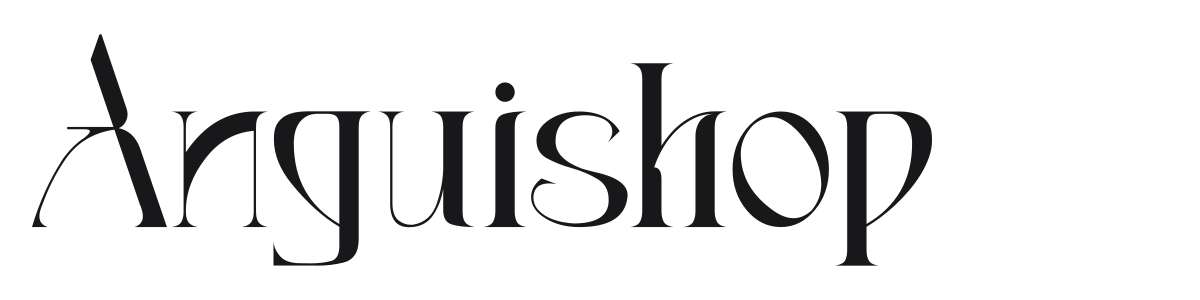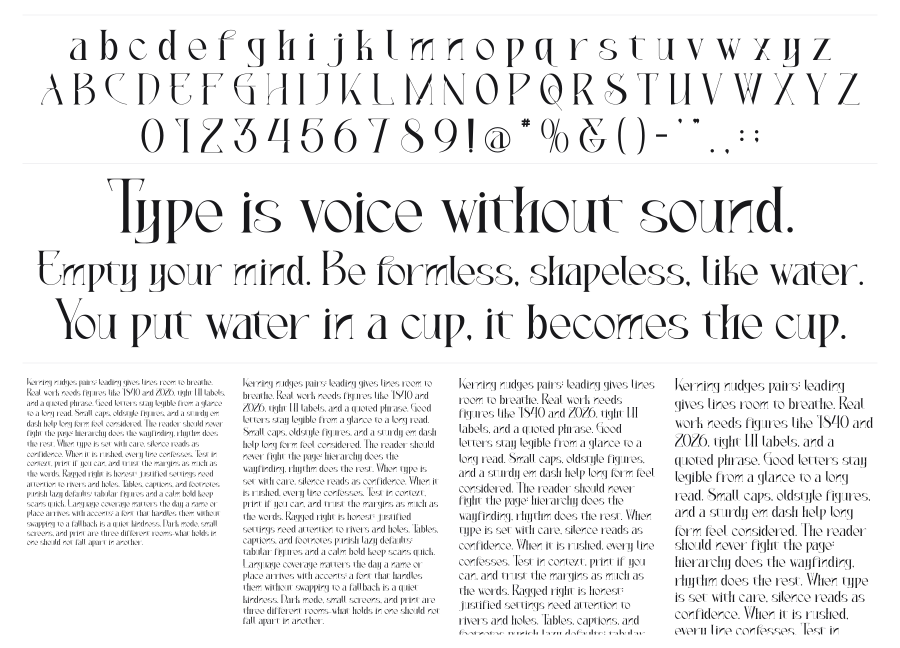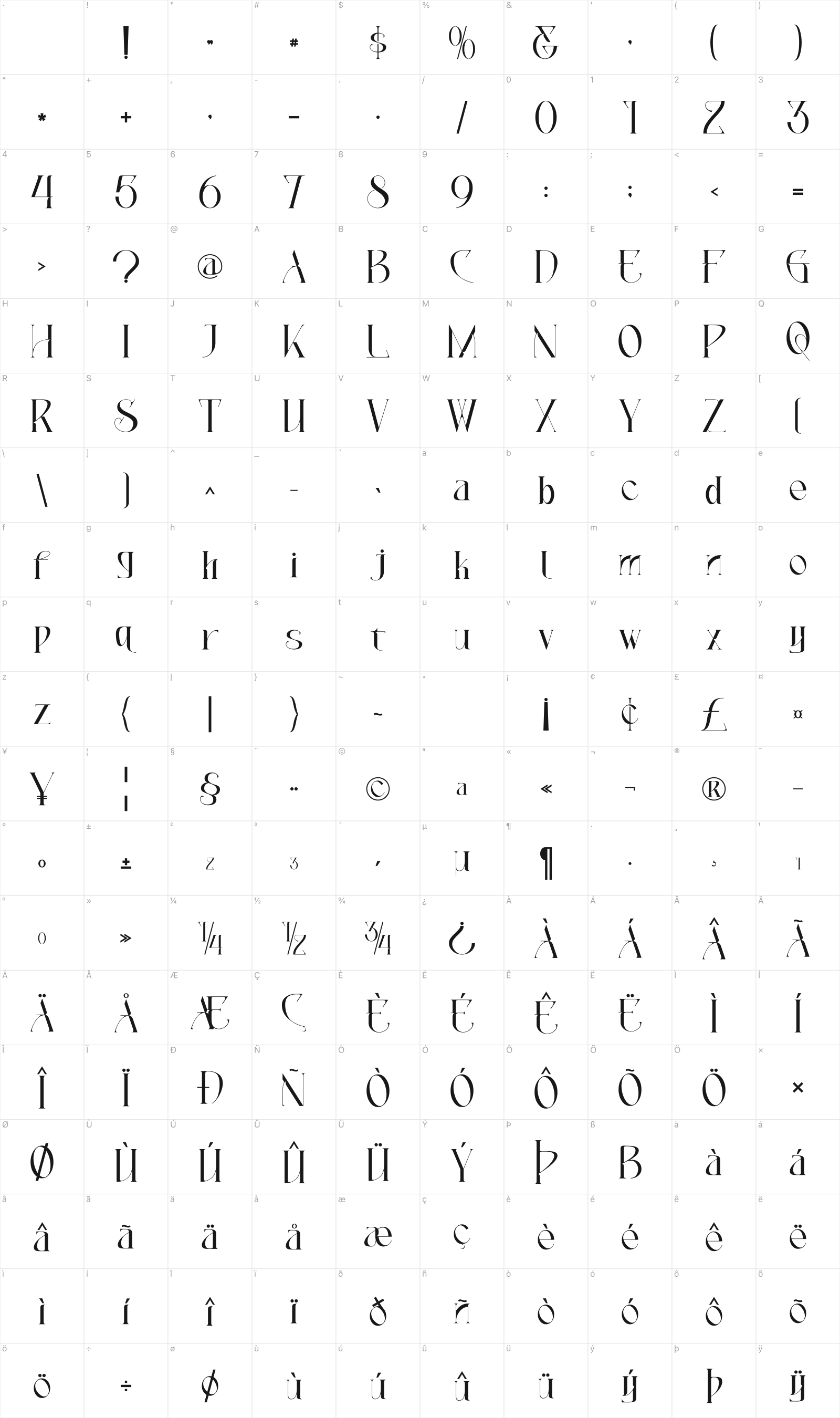
Anguishop
Anguishop is a high-contrast modern serif rooted in the Didone tradition, with razor-thin strokes set against bold vertical stems and occasional calligraphic flourishes. The wide letter spacing and tall proportions give it an airy, editorial quality that reads as distinctly contemporary luxury. It's a natural choice for fashion branding, editorial headlines, and packaging where drama and refinement need to coexist.